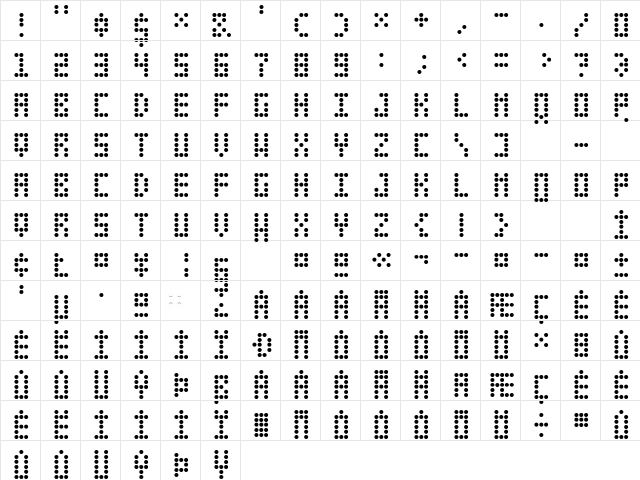
Leciceron Normal
Design Context for Leciceron Typeface
Leciceron takes a measured approach to typography — its balanced proportions and neutral character make it a reliable workhorse for both digital and print work.